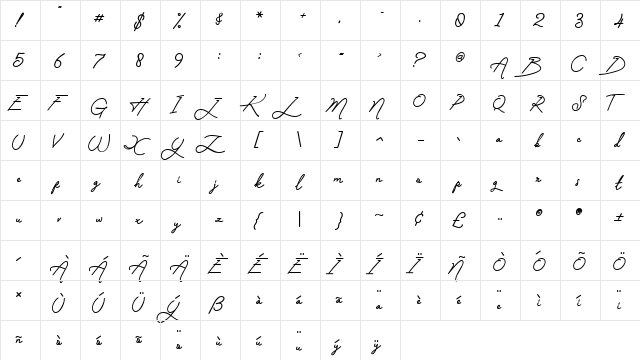
Manallagi Regular
| Foundry | Krisna Teja |
Design Context for Manallagi Typeface
Manallagi is a composed and adaptable typeface that performs quietly and consistently across a wide range of design contexts.
Pro Tip: Pair Manallagi with a font of contrasting weight or personality to build a more expressive typographic hierarchy.